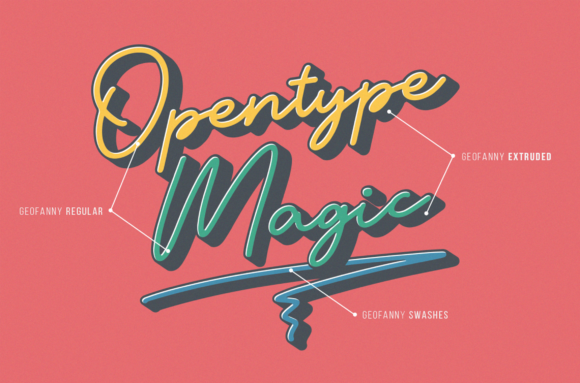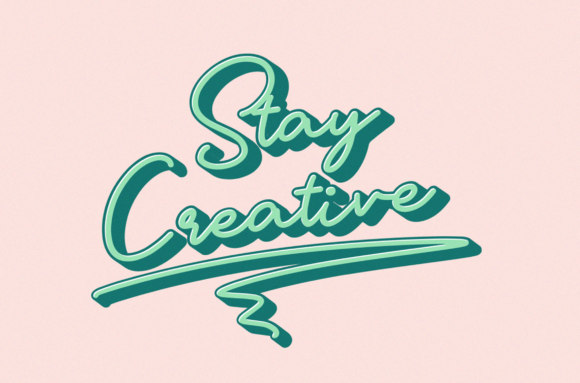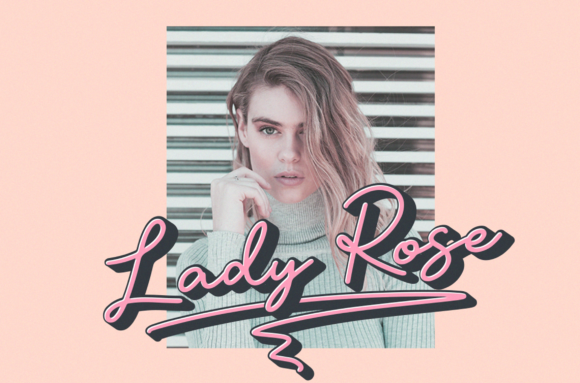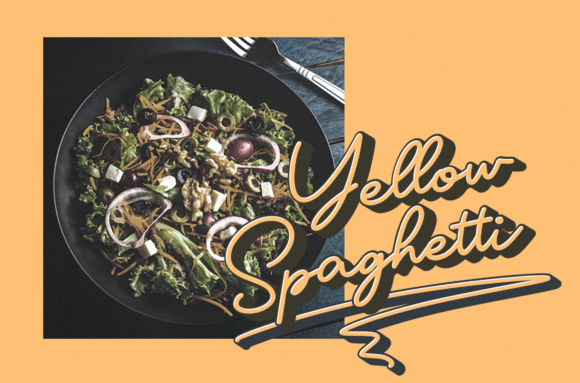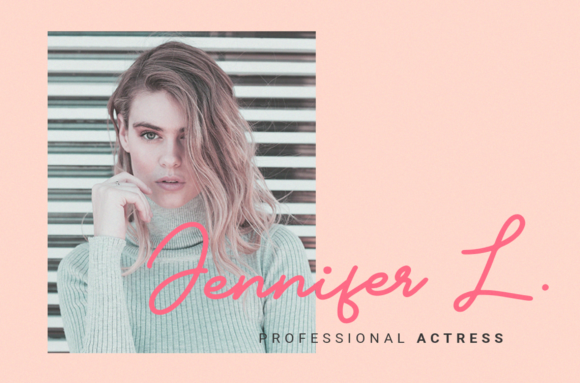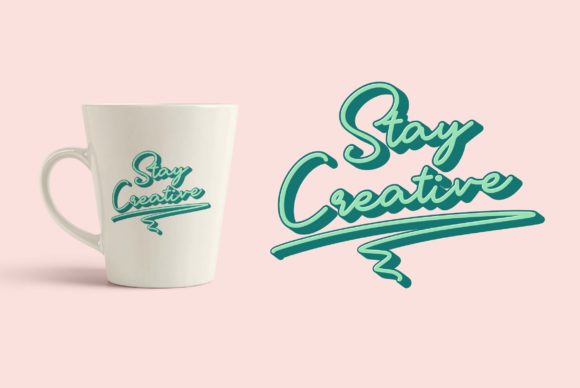
Discover the Elegance of Geofanny Font: A Friendly Handwritten Delight
Are you on the hunt for a font that adds a touch of elegance and friendliness to your designs? Look no further than Geofanny Font, a beautiful handwritten font that is sure to capture your heart. With its incredibly distinct and timeless style, Geofanny is the perfect choice for designers and crafters looking to create spectacular designs that stand out from the crowd.
What is Geofanny Font?
Geofanny Font is a carefully crafted handwritten font that exudes a sense of warmth and approachability. Its elegant touch makes it an ideal choice for a wide range of projects, from branding and advertising to packaging and digital media. Whether you’re looking to create a logo, a social media graphic, or a website, Geofanny Font is sure to bring a touch of sophistication and style to your design.
Key Features of Geofanny Font
- Handwritten with love: Geofanny Font is a genuine handwritten font, crafted with care and attention to detail to ensure a natural and fluid look.
- Elegant touch: With its smooth lines and flowing curves, Geofanny Font adds a touch of elegance to any design.
- Distinct and timeless style: Geofanny Font has a unique and timeless style that sets it apart from other fonts, making it perfect for designers looking to create memorable designs.
- Perfect for a wide range of projects: From branding and advertising to packaging and digital media, Geofanny Font is versatile enough to be used in a variety of projects.
Why Choose Geofanny Font?
So why choose Geofanny Font over other fonts? Here are just a few reasons why designers and crafters are falling in love with this beautiful handwritten font:
- Unique and memorable: Geofanny Font has a unique and memorable style that will help your designs stand out from the crowd.
- Easy to read: Despite its elegant and cursive nature, Geofanny Font is surprisingly easy to read, making it perfect for body text and headlines.
- Highly versatile: Geofanny Font can be used in a wide range of projects, from digital media to print materials.
- Perfect for branding: With its friendly and approachable style, Geofanny Font is an excellent choice for branding and logo design.
How to Use Geofanny Font in Your Designs
Using Geofanny Font in your designs is easy! Here are a few tips to get you started:
- Pair it with a bold font: Pair Geofanny Font with a bold font for a striking contrast that will make your designs pop.
- Use it for headlines and titles: Geofanny Font is perfect for headlines and titles, where its elegant and cursive style can really shine.
- Add some texture and patterns: Add some texture and patterns to your design to give it an extra layer of depth and interest.
In conclusion, Geofanny Font is a friendly handwritten font that is sure to delight designers and crafters alike. With its elegant touch, distinct and timeless style, and versatility, Geofanny Font is the perfect choice for a wide range of projects. Whether you’re looking to create a logo, a social media graphic, or a website, Geofanny Font is sure to bring a touch of sophistication and style to your design. So why wait? Fall in love with Geofanny Font today and start creating spectacular designs that will leave a lasting impression!